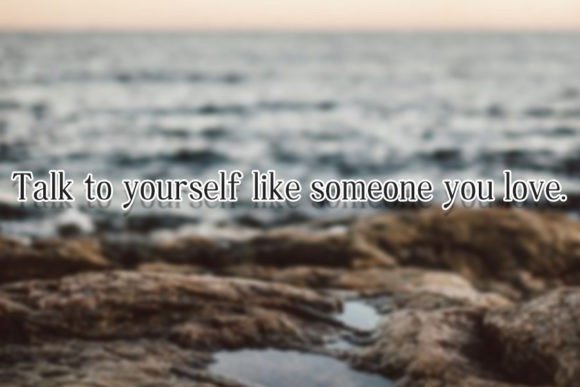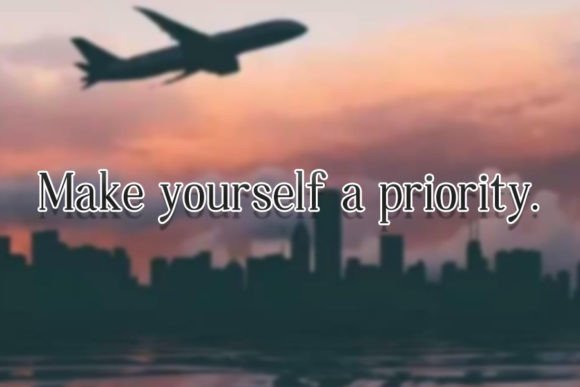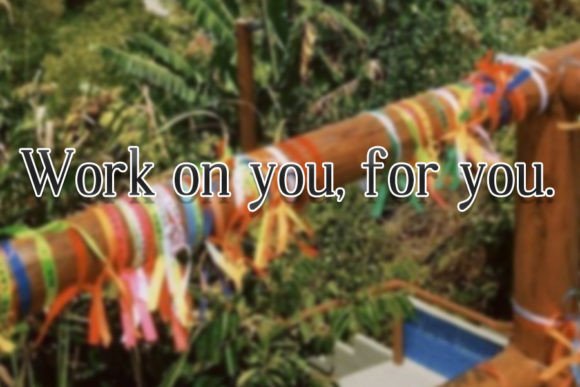
Introduction to Roundtrip Font
Roundtrip is a stylish serif font, carefully handcrafted to become a true favorite.
This font is the perfect fit for all of your logos, branding, social media, and crafty DIY projects .
Key Features of Roundtrip Font
Why Choose Roundtrip Font?
Roundtrip Font offers exceptional quality and versatility, making it a valuable addition to your design toolkit. Whether you’re creating for personal projects or commercial use, Roundtrip Font delivers professional results.